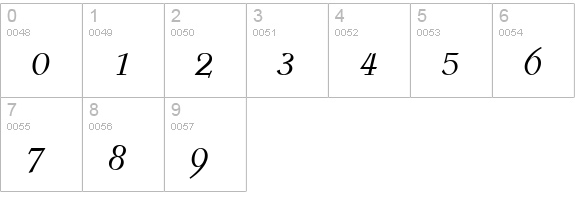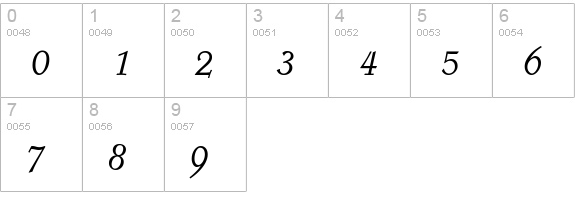
Post Mediaeval Italic Font Details
Post Mediaeval Italic is a distinctive, italic variant in the Post typeface family \xE2\x80\x94 well suited to design and typography projects.
Post Mediaeval Italic is a classic yet elegant typeface that beautifully captures the essence of the post-medieval era. Its graceful, slanted letterforms exude sophistication and timelessness, making it a perfect choice for projects requiring a refined touch. The delicate curves and subtle serifs of this font add a touch of old-world charm to any design, making it a versatile choice for a wide range of applications. The Post Mediaeval Italic font is not only visually appealing but also highly legible, ensuring readability across various mediums. Whether used for print or digital projects, this font is sure to make a lasting impression on your audience. Best of all, Post Mediaeval Italic is available for free download at FontsMarket.com. This means you can easily access this beautiful font and use it in your projects without any cost. Don't miss out on the opportunity to enhance your designs with the timeless elegance of Post Mediaeval Italic – download it today and elevate your typography game!